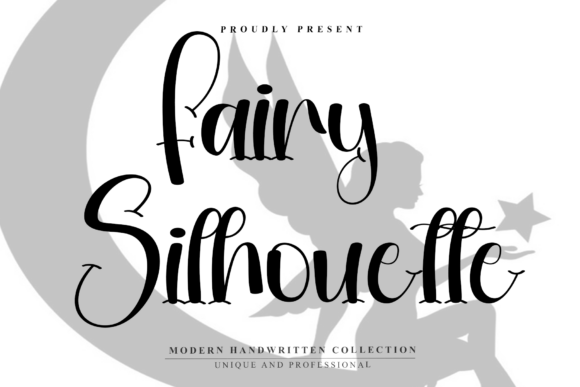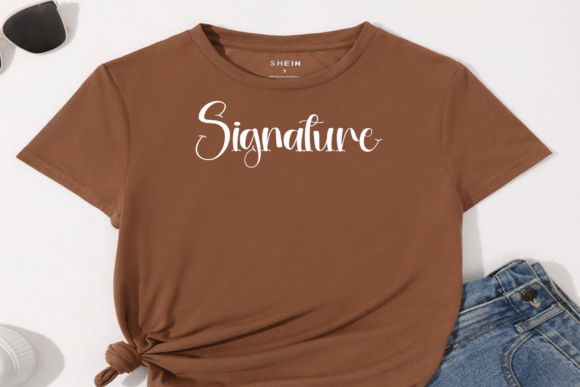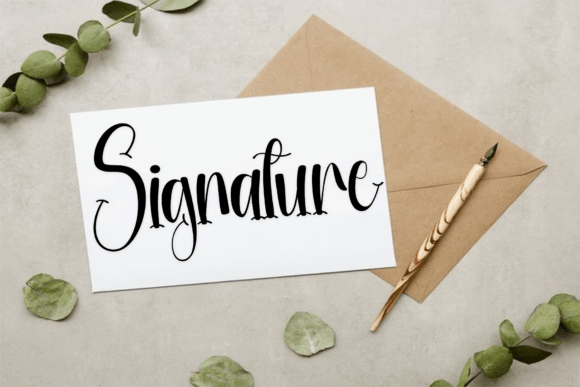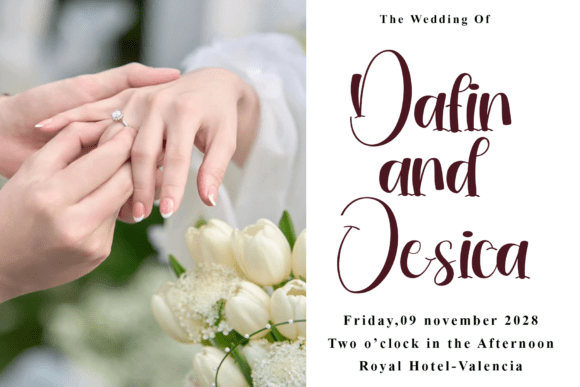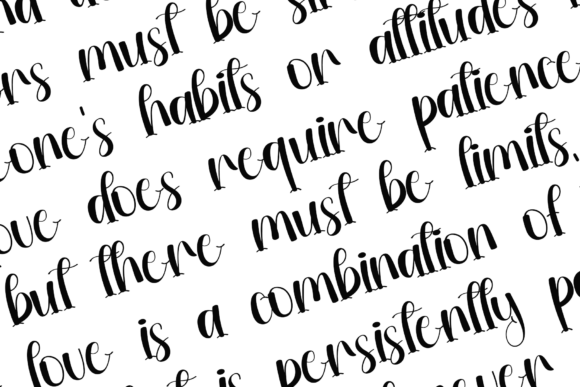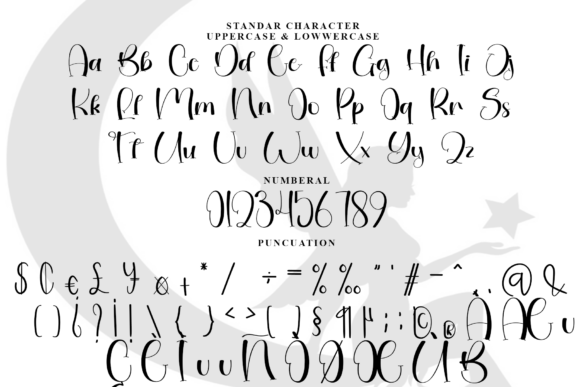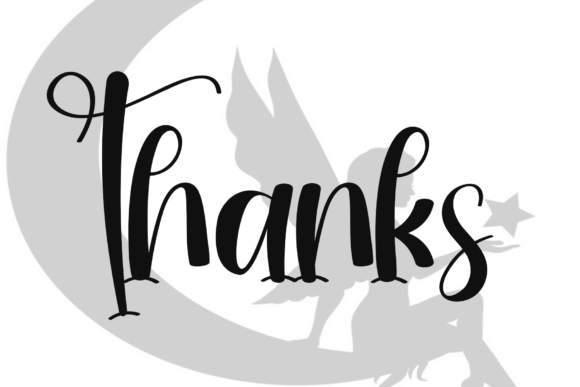
The Magic of Handwritten Typography
Have you ever been on a hike, surrounded by nature’s beauty, and felt the urge to capture the essence of the moment in a design? Perhaps you wanted to convey the carefree spirit of adventure or the warmth of a summer evening. Whatever the inspiration, you know that the right font can make all the difference in bringing your creative vision to life. That’s where the Fairy Silhouette Font comes in – a stylish handwritten font that adds a touch of organic charm to your designs.
This font is more than just a pretty face; it’s a powerful tool for designers looking to add a unique and professional touch to their work. With its thick, solid strokes and distinct “bouncy” rhythm, the Fairy Silhouette Font is perfect for outdoor lifestyle branding, organic product packaging, and travel-themed graphics that need a smart and adventurous handmade look.
Fairy Silhouette Font Key Features
- Font Type: Hand-drawn, whimsical, and elegant font, ideal for creative and artistic projects.
- Unique Characteristics: Features intricate details, delicate lines, and subtle texture, giving it a unique and enchanting feel.
Fairy Silhouette Font Review
I recently had the chance to work with the Fairy Silhouette Font, and I must say it’s a unique and eye-catching addition to any design project. ✨ The delicate, hand-drawn style and subtle details make it perfect for whimsical and romantic designs. It’s also highly versatile, suitable for a wide range of applications, from logos and branding to wedding invitations and children’s books.
One of the things I appreciate most about Fairy Silhouette is its high-quality vector format, which ensures crisp and clear rendering across different resolutions and sizes. ✨ The font also includes a wide range of characters and punctuation marks, making it easy to use in a variety of contexts.
- ⚠️ Some characters may not be as well-formed or consistent in their design, which can impact the overall coherence of a design.
- ⚠️ The font may not be suitable for large-scale or high-contrast designs, where the delicate details may get lost.
Overall, I’d give Fairy Silhouette a solid 4 out of 5 stars. It’s a beautiful and versatile font that’s perfect for designers looking to add a touch of whimsy to their projects. With some careful consideration of its limitations, it can be a valuable addition to any design toolkit.
Getting the Most Out of Fairy Silhouette Font
Use Fairy Silhouette font for whimsical and magical designs, such as:
Wedding invitations and decorations
Children’s book illustrations
Whimsical logo designs
Remember to pair the font with complementary colors and designs to enhance its magical effect.